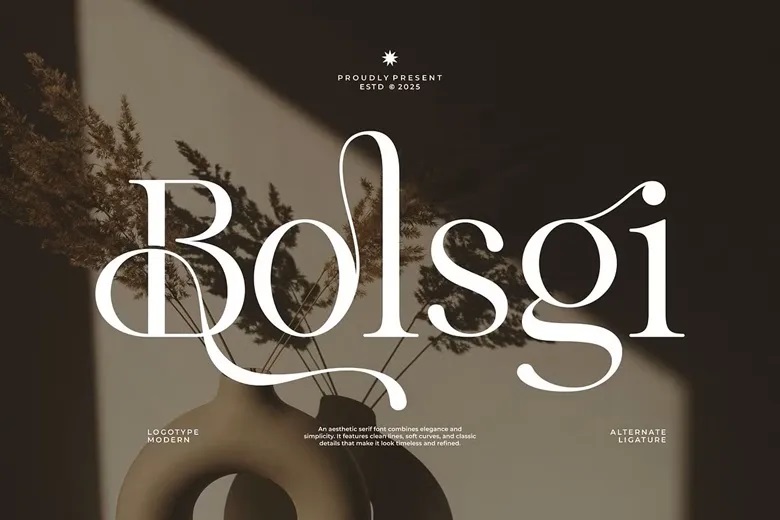
Bolsgi Font
Bolsgi is a modern and elegant serif font, perfect for branding and logo design. Its stylish character makes it a great choice for invitation cards, logos, movie titles, business cards, book covers, brand names, and more.
Bolsgi features smooth lines and a sophisticated look. Its stylish ligatures make it a versatile option for any project.
Bolsgi Serif Font